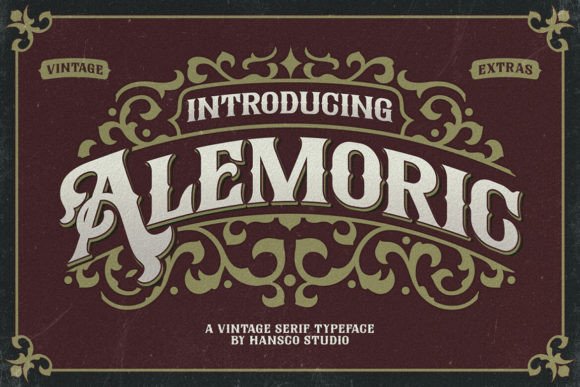
Alemoric Font: Elevate Your Design with a Vintage Twist
In the realm of typography, fonts play a pivotal role in defining the aesthetic and tone of a design project. Among the myriad of typefaces available, Alemoric Font stands out for its unique vintage charm, capable of infusing an old-rustic allure into any creative endeavor. This comprehensive article delves into the Alemoric Font, exploring its characteristics, uses, and the distinctive touch it can bring to various design projects.
Introduction to Alemoric Font
Alemoric is a vintage typeface font that has been meticulously crafted to add an old-rustic charm to design projects. Its creation was inspired by the classic typography of bygone eras, bringing forth a sense of nostalgia and authenticity. This font is not just a simple collection of characters; it’s a gateway to transforming your designs with a retro, wild, or organic style.
Characteristics of Alemoric Font
Alemoric Font boasts several distinctive features that set it apart from modern typefaces:
- Vintage Appeal: The font exudes an old-world charm that can instantly elevate the aesthetic of a design.
- Rustic Touch: It adds a rustic, earthy feel to texts, making it perfect for projects that require an organic look.
- Versatility: Despite its vintage roots, Alemoric is incredibly versatile, suitable for a wide range of design applications.
- High Readability: The font maintains high readability, ensuring that messages are conveyed clearly and effectively.
Perfect for Vintage, Retro, Wild, or Organic Style Projects
Alemoric Font is specifically designed to cater to projects with a vintage, retro, wild, or organic style. Its unique characteristics make it an ideal choice for:
- Product Logos: Ideal for logos of products like pomade, coffee, or any item that requires a vintage or rustic branding.
- Barber Shop Branding: Perfect for barber shops or any business looking to evoke a classic, timeless feel.
- Packaging Labels: Great for product packaging, especially for items that benefit from a vintage or organic look.
Applications of Alemoric Font
The versatility of Alemoric Font allows it to be used across various design projects, including:
- Branding: Use Alemoric to create a distinctive brand identity that stands out.
- Logo Designs: Its vintage appeal makes it perfect for logo designs that aim to convey tradition or nostalgia.
- Lettering and Logotype: Ideal for custom lettering and logotype projects that require a personal touch.
- Craft and Artisan Projects: Suitable for crafts, artisan products, or any project that celebrates handmade or traditional aspects.
- Posters: Alemoric can add a classic touch to posters for events, promotions, or informational purposes.
Tips for Using Alemoric Font Effectively
To maximize the impact of Alemoric Font in your designs, consider the following tips:
- Combine with Modern Elements: Pair Alemoric with modern design elements to create a striking contrast.
- Adjust Font Sizes: Experiment with different font sizes to emphasize certain parts of your text.
- Play with Colors: Choose colors that complement the vintage feel of Alemoric, such as earth tones or classic color schemes.
- Consider Legibility: Ensure that your design remains legible, especially when using Alemoric for body text or detailed information.
Alemoric Font is a powerful tool for designers looking to infuse their projects with a vintage, rustic charm. Its unique characteristics, versatility, and the ability to evoke nostalgia make it an excellent choice for a wide range of design applications. Whether you’re working on a logo, branding, packaging, or any other project, Alemoric Font can help you achieve that distinctive old-rustic look that sets your design apart.
FAQs About Alemoric Font
What type of projects is Alemoric Font best suited for?
Alemoric Font is ideal for projects that require a vintage, retro, wild, or organic style, such as product logos, barber shop branding, and packaging labels.